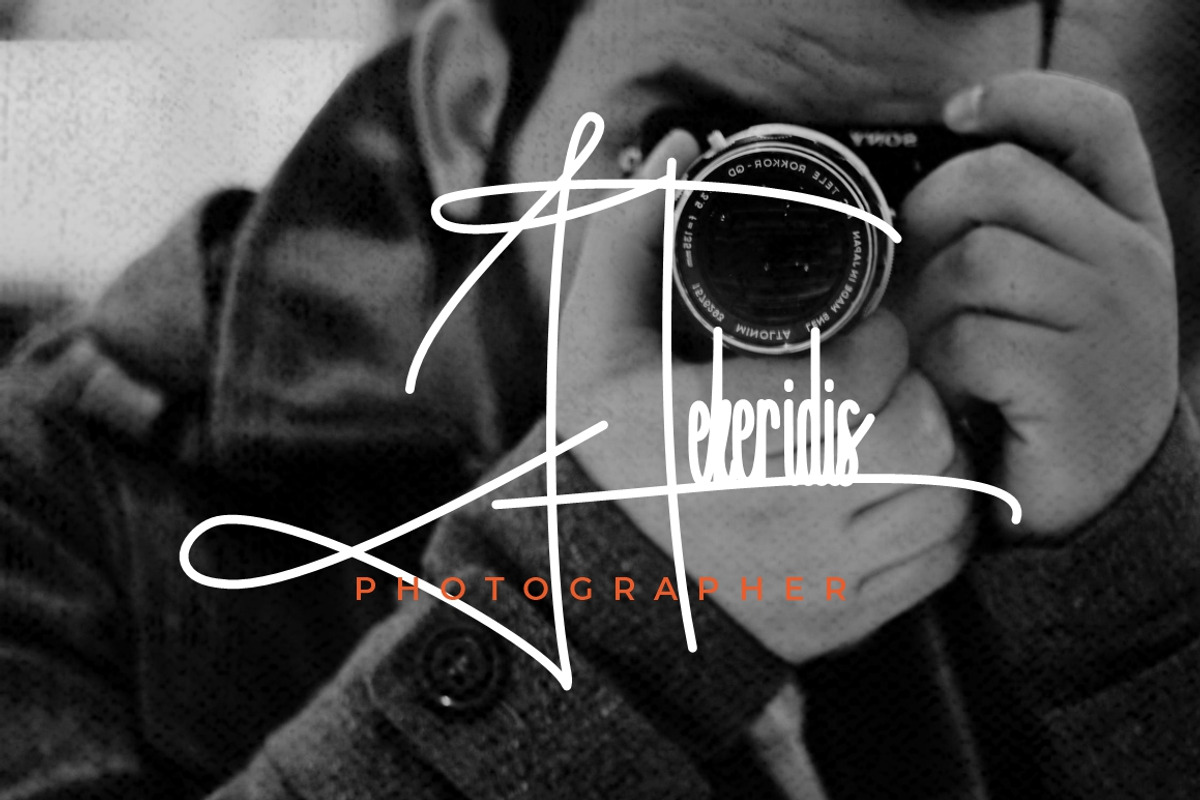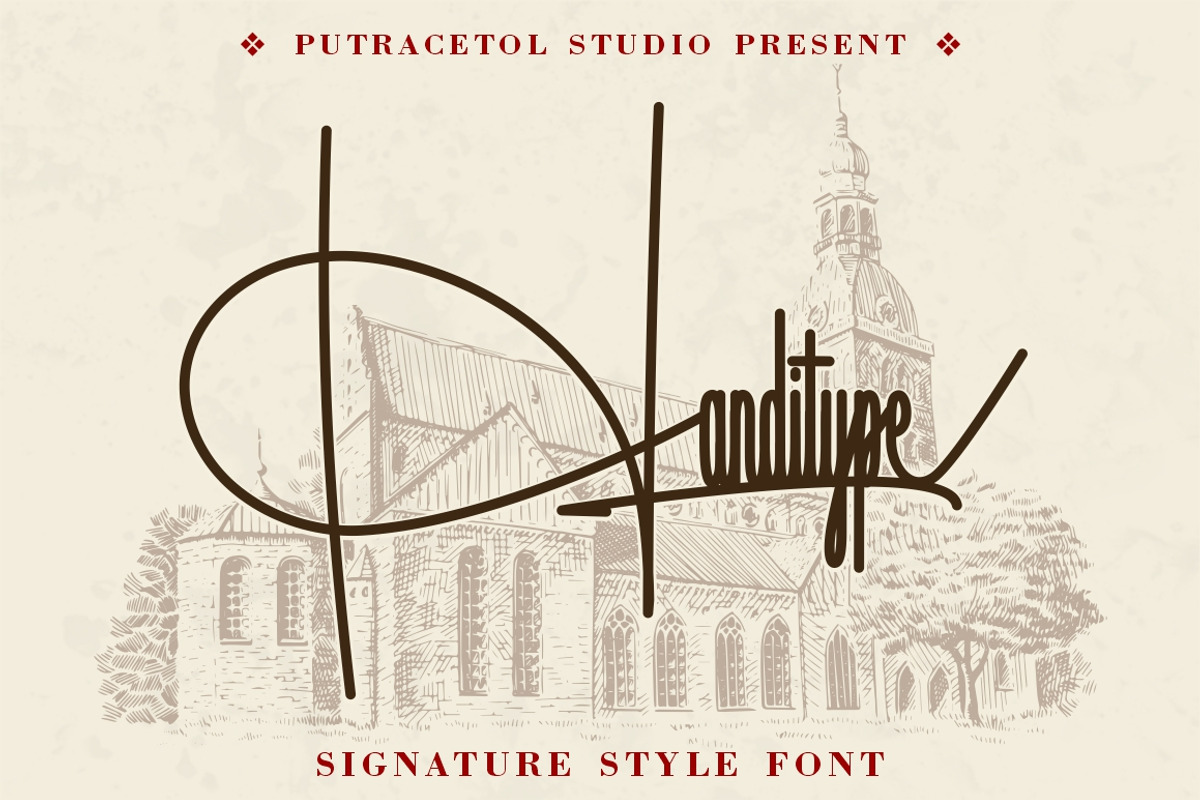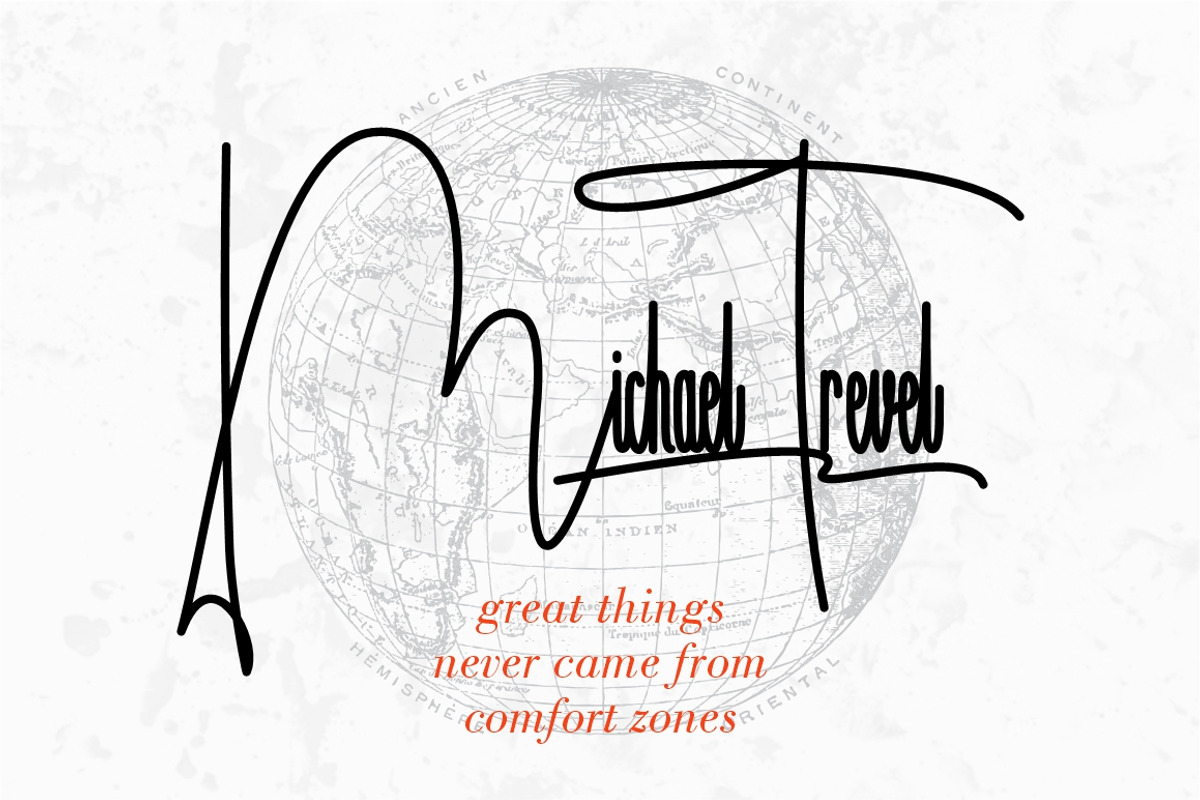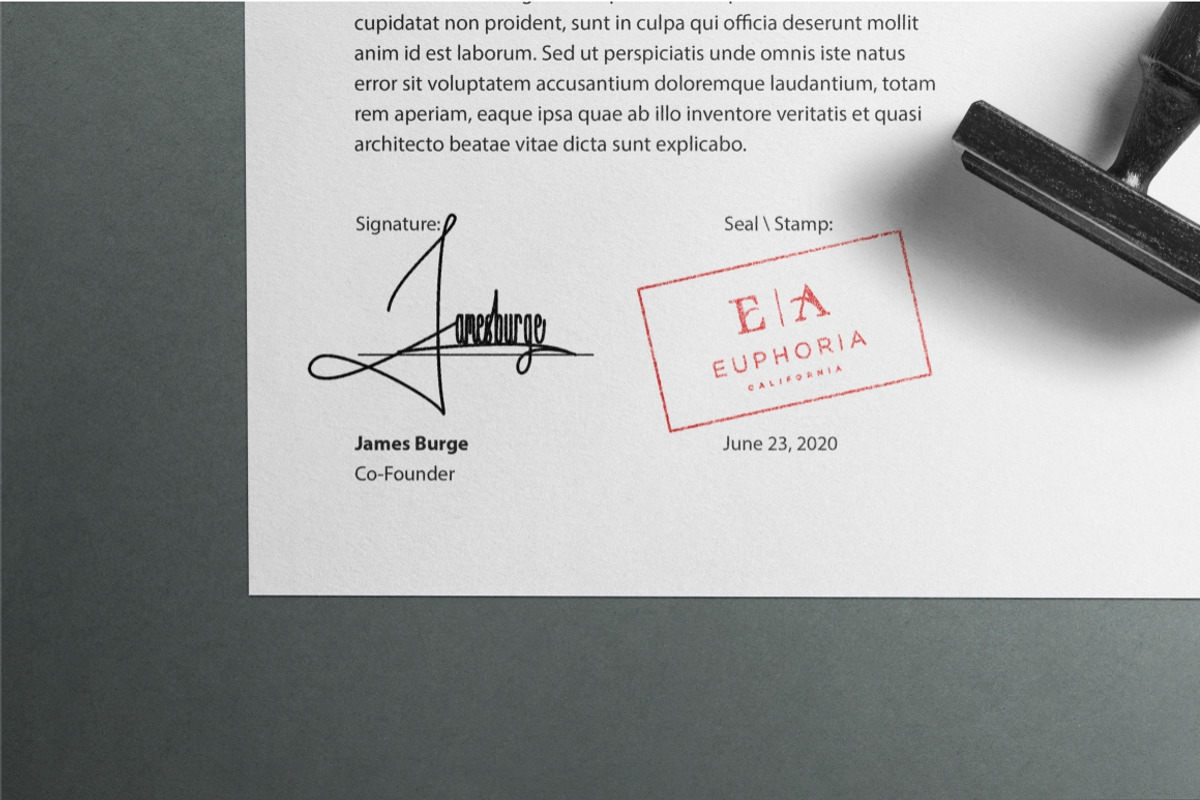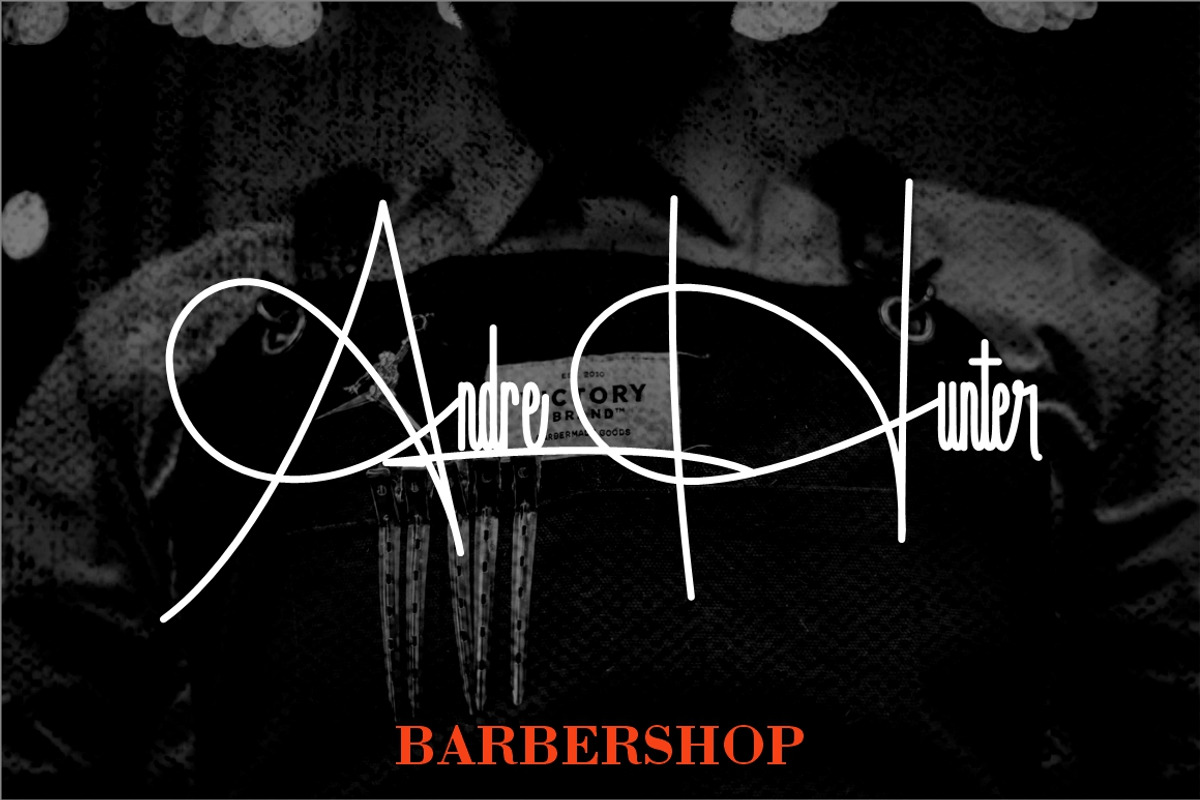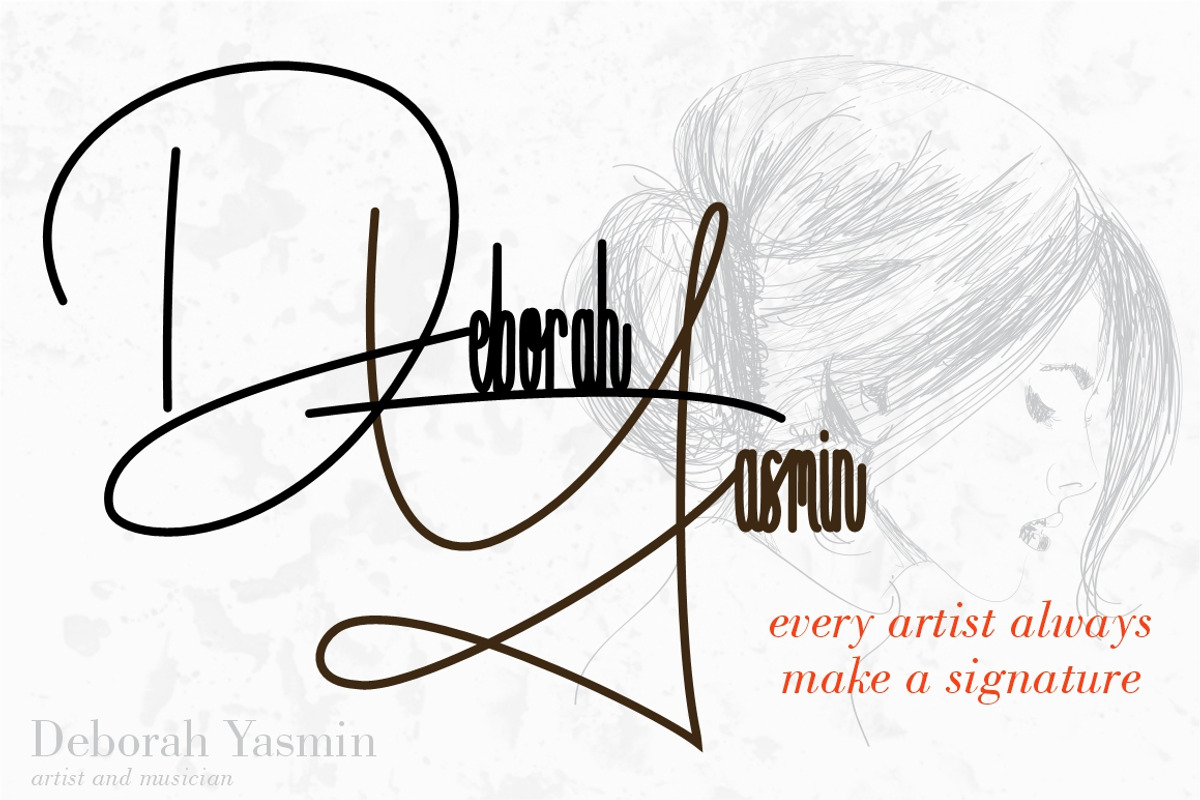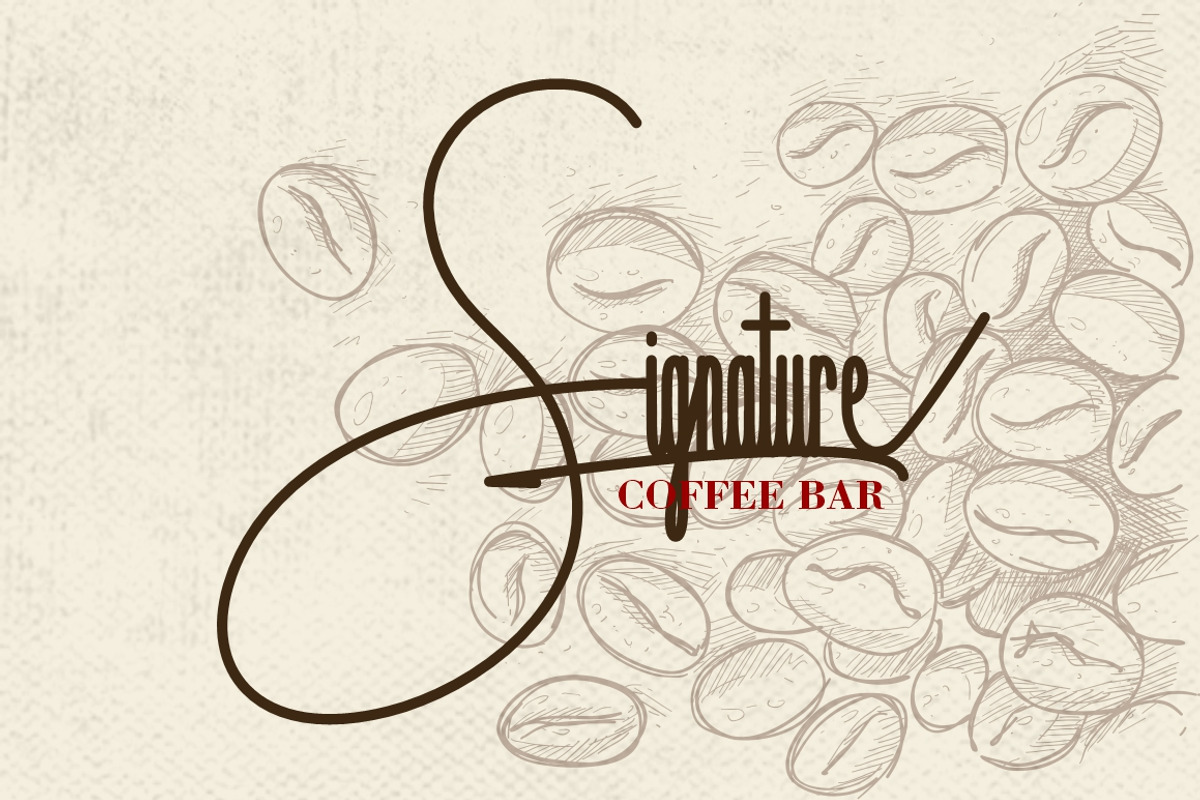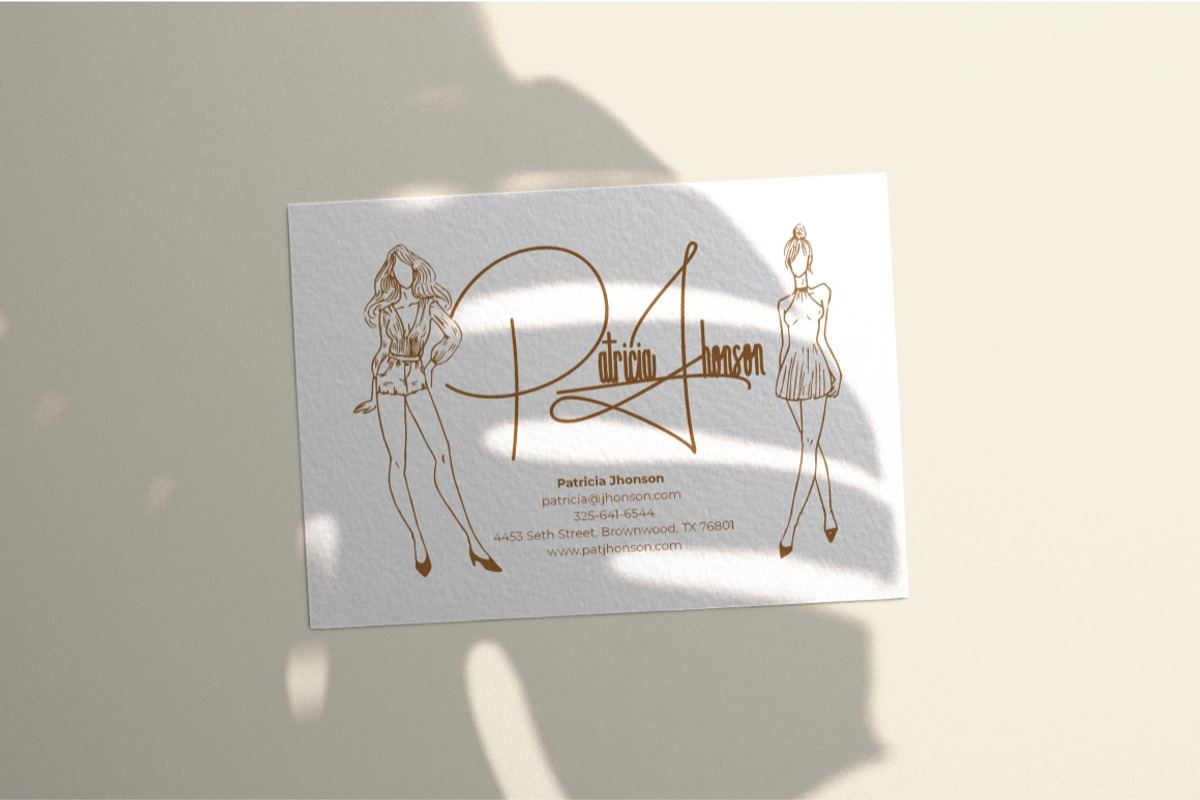
Handitype - Signature Style Font
Handitype is a fonts with shapes and styles similar to real signatures. Very different from most other signature fonts that are longer, "handitype" shorter and taller. That's what makes this font more unique. Handitype best uses for signature, heading, cover, branding, logos, name and many more.
Multilanguage Support.